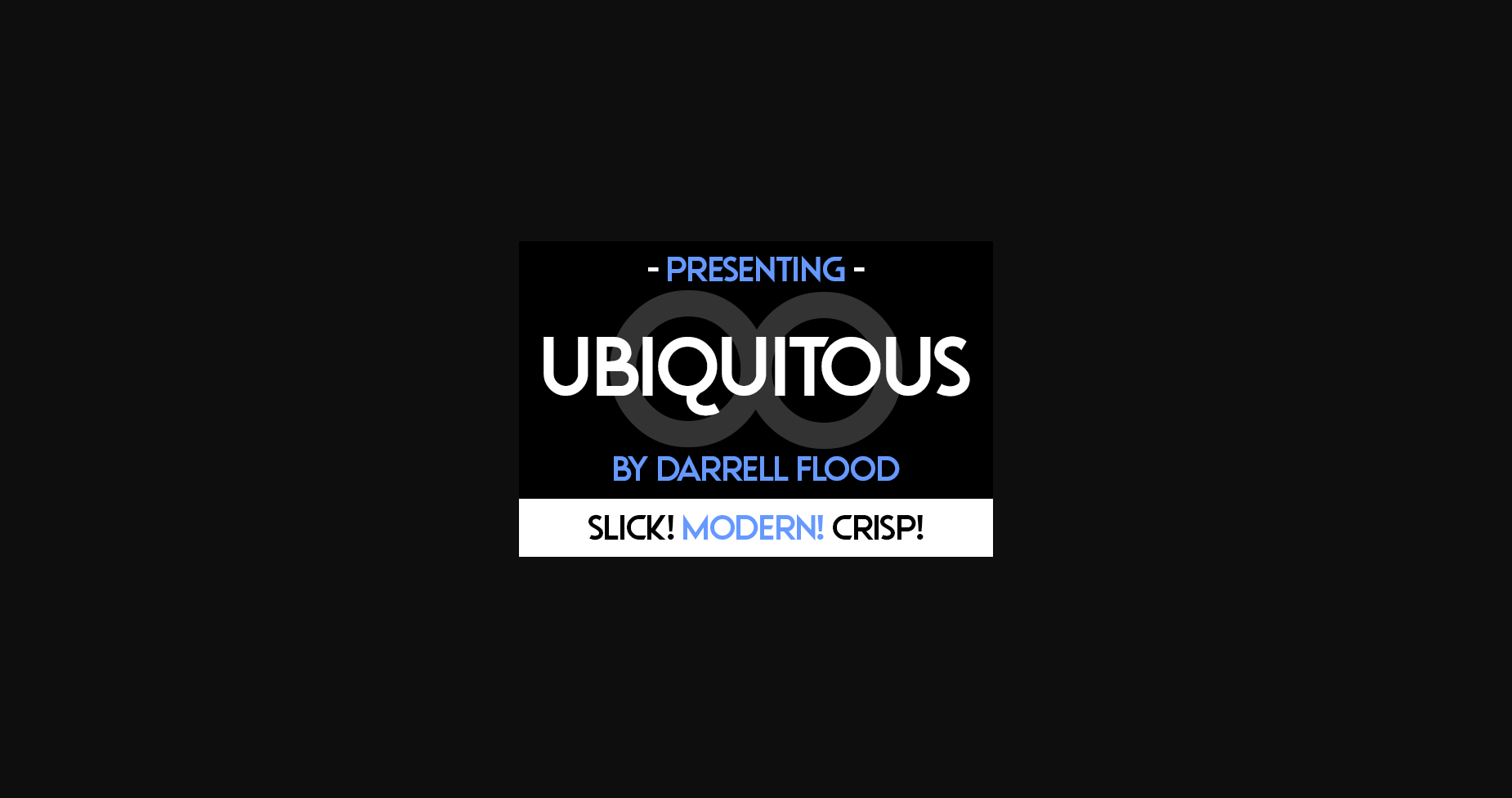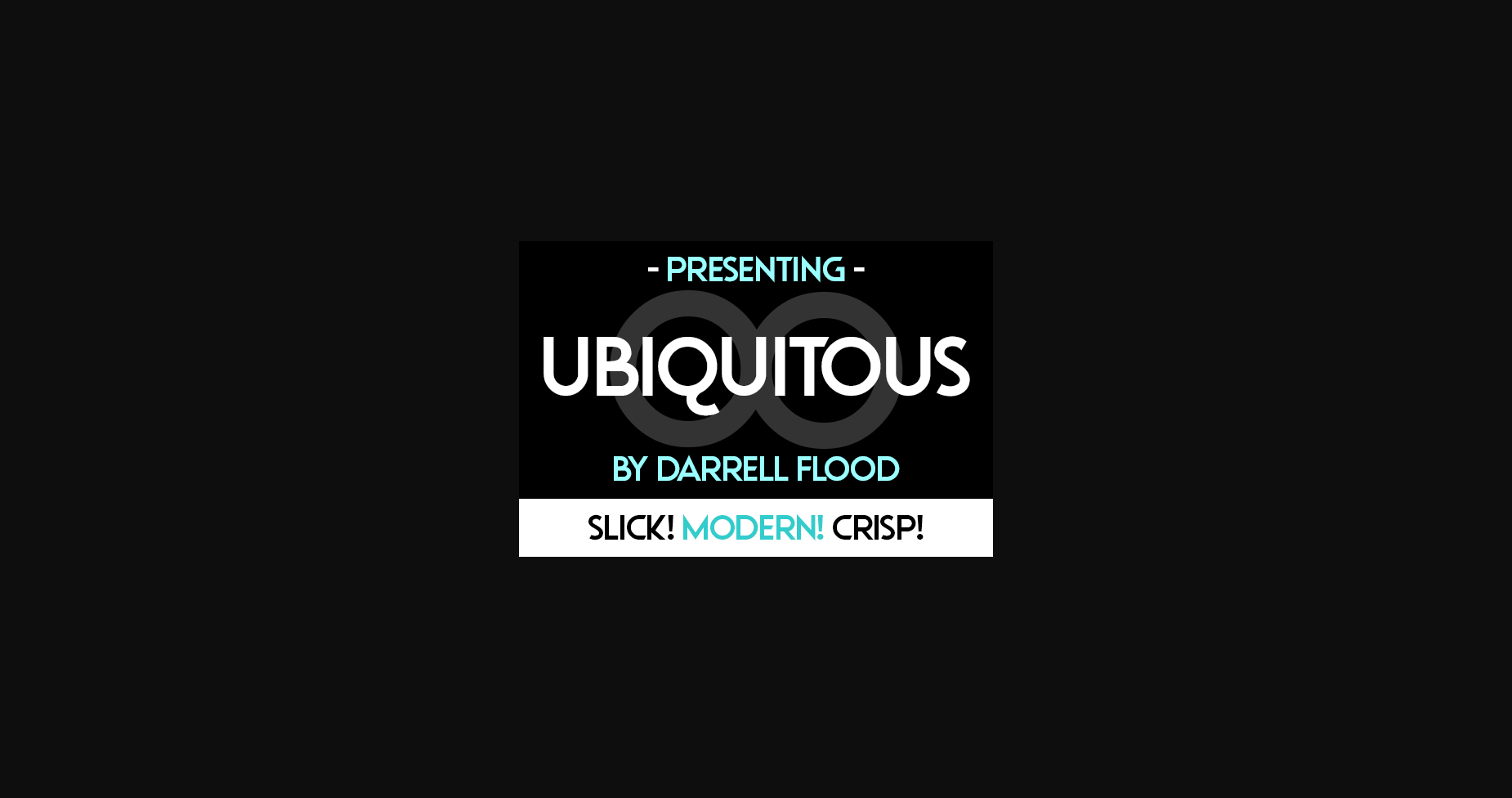
Ubiquitous Font
About Ubiquitous Font
Ubiquitous is a minimal and neat sans serif font. It can easily be matched to an incredibly large set of projects, so add it to your creative ideas and notice how it makes them stand out!